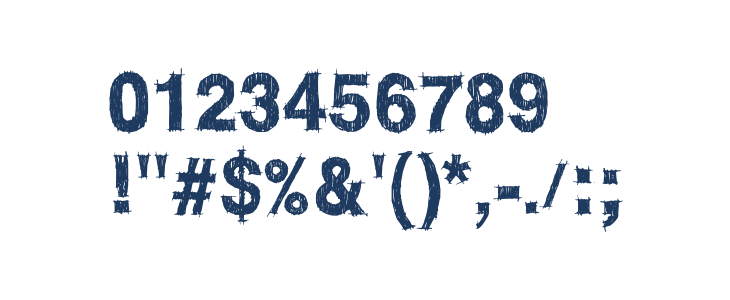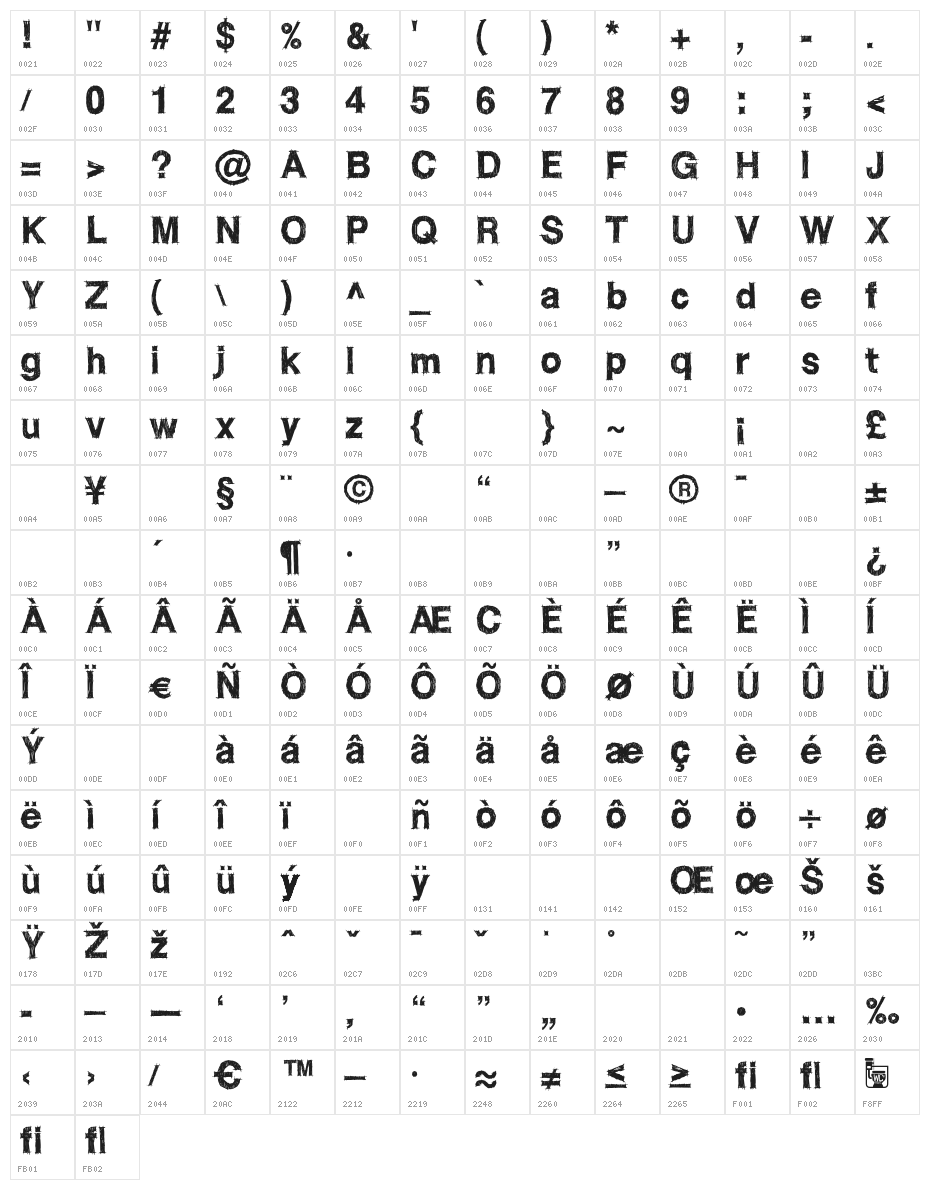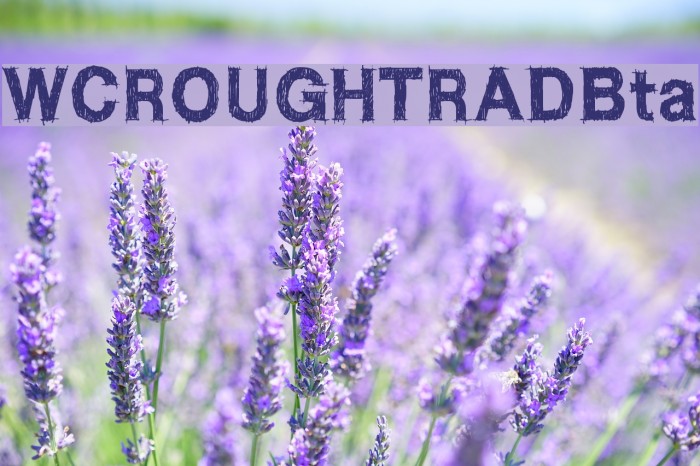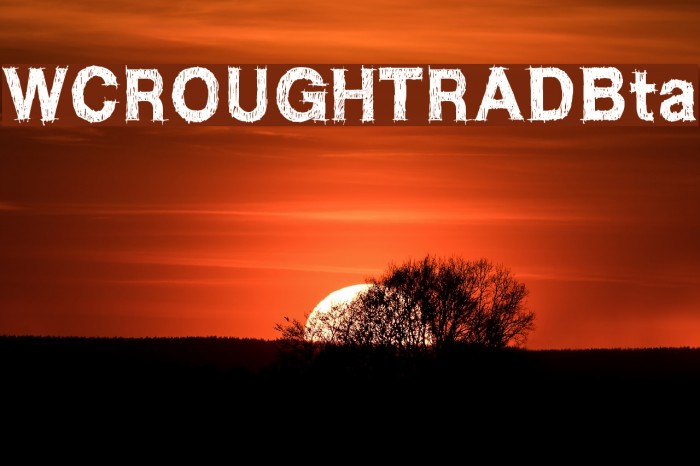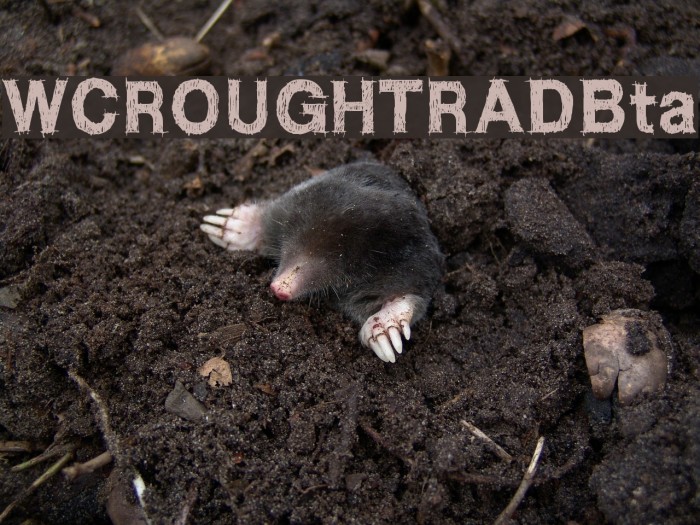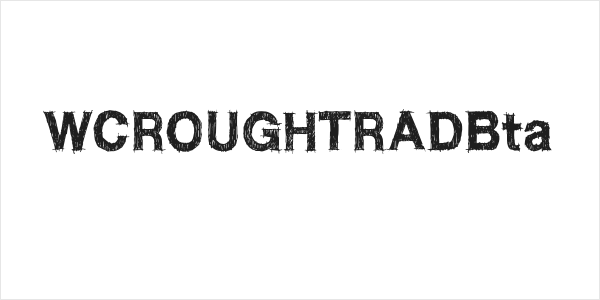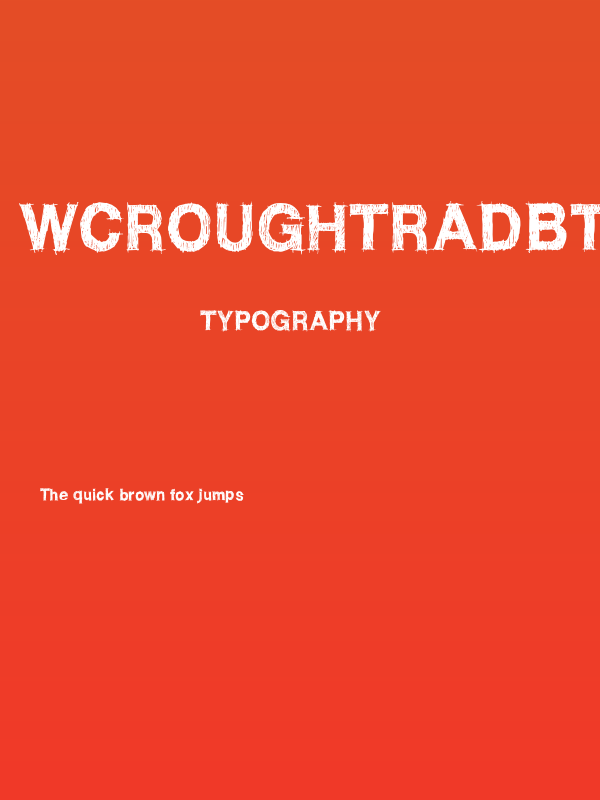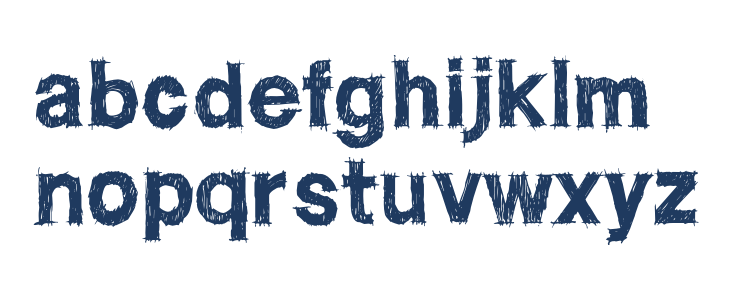
WCROUGHTRADBta Font
WCROUGHTRADBta Description
This font features a rugged, distressed appearance, reminiscent of worn textures and rough surfaces. Each character is marked by irregular edges and a hand-crafted feel, giving it a unique, gritty aesthetic. The uppercase and lowercase letters maintain a consistent style, with bold strokes and a slightly chaotic arrangement that adds to its charm. Numbers and special characters follow the same design principles, ensuring uniformity across all glyphs. This font is ideal for projects that require a bold statement or an edgy, urban vibe.
| Proposed Projects | Perfect for posters, album covers, streetwear branding, or any project needing an edgy, urban touch. |